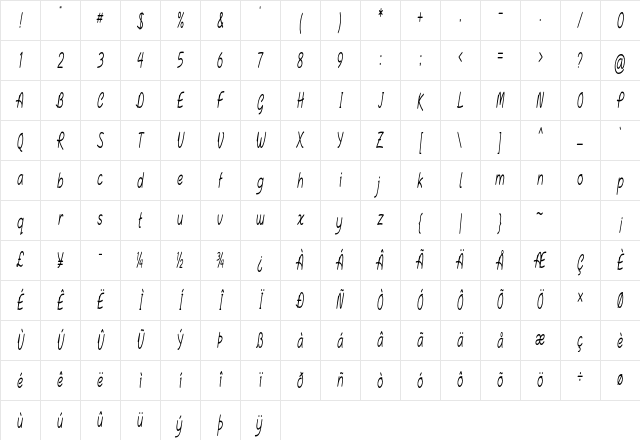
Henzo Extra-condensed Regular Free Font
Henzo Extra-condensed Regular
Style: Extra-condensed Regular
Complete Henzo Extra-condensed Regular glyph index. Displaying only characters natively supported by Henzo Extra-condensed Regular font.
Design Context for Henzo
Henzo is a composed and adaptable typeface that performs quietly and consistently across a wide range of design contexts. Its narrow stance lets it pack a punch even in space-constrained designs.